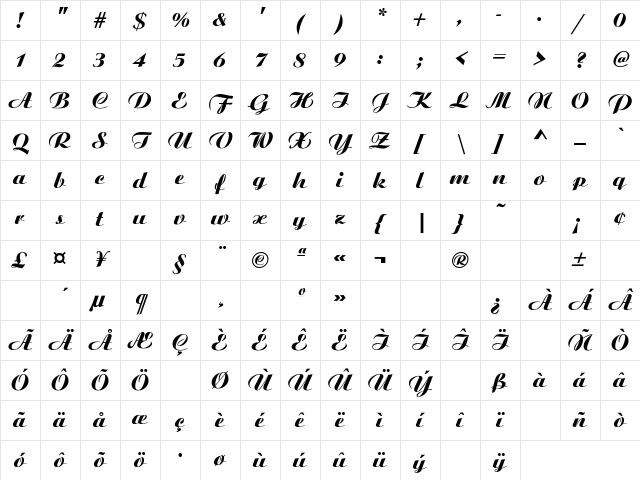
Artoney Regular
Design Context for Artoney
Artoney is a composed and adaptable typeface that performs quietly and consistently across a wide range of design contexts.